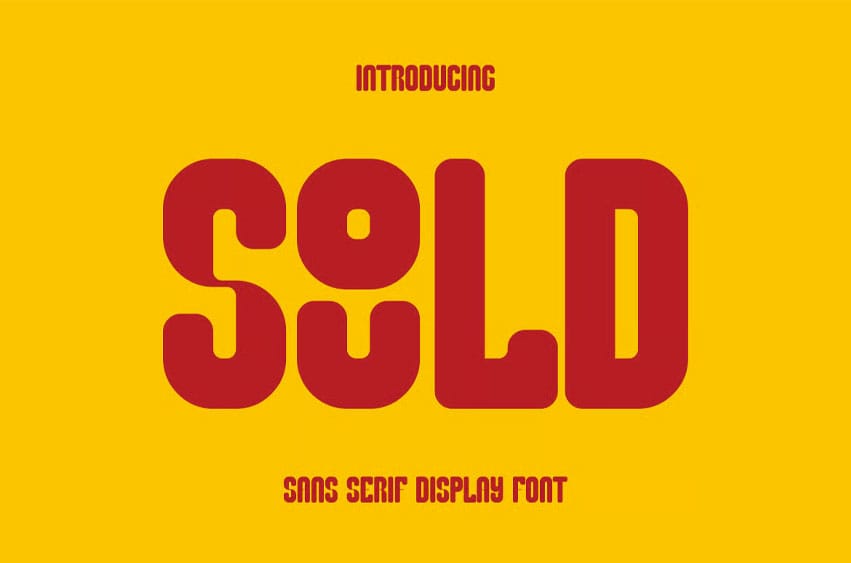
Sould Font
Sould Font is a typeface that comes in a variety of styles, featuring high contrast, sharp details, and classic charm. This typeface can be easily adapted for a variety of creative projects. It provides an elegant and professional look for any project.